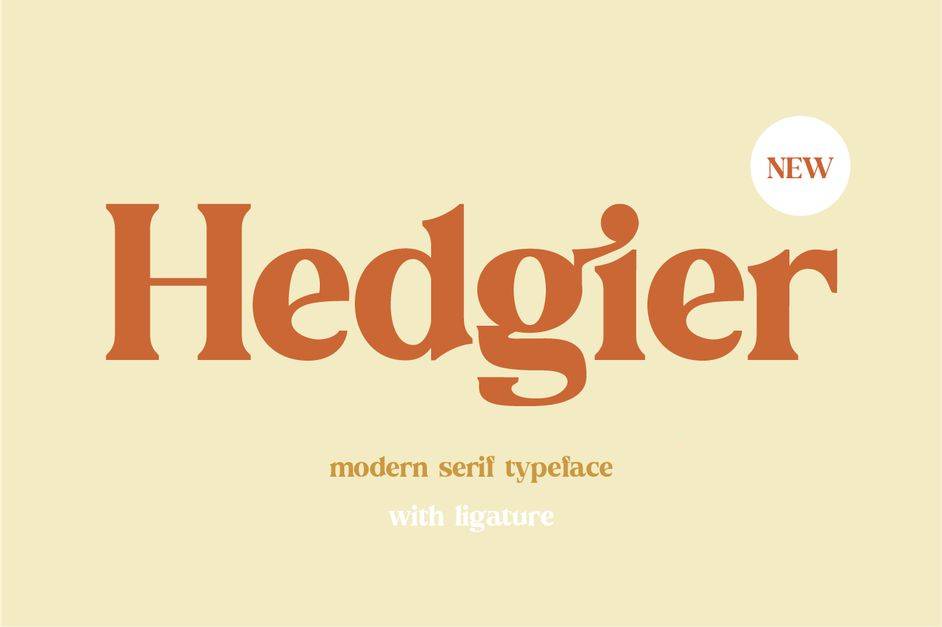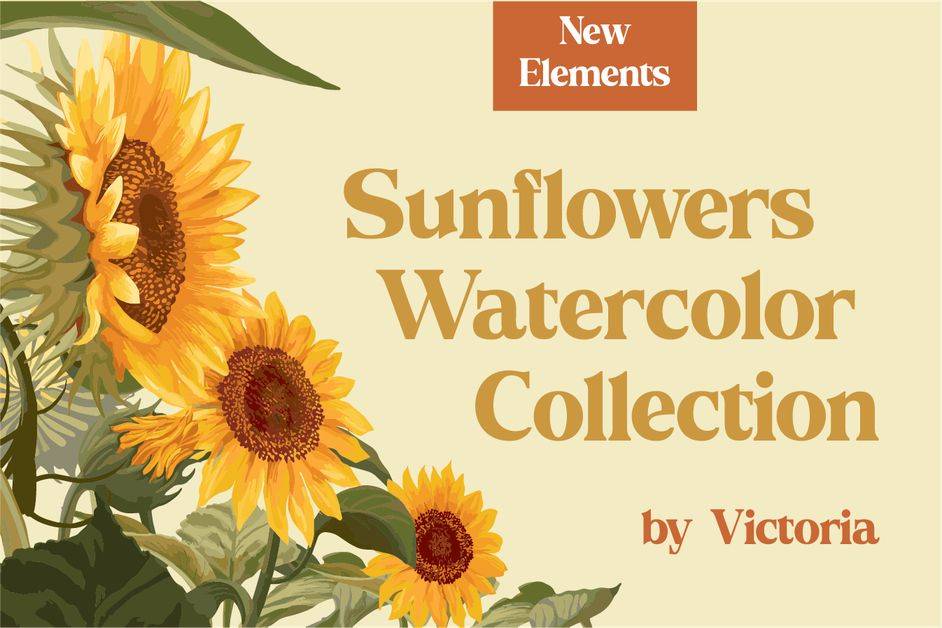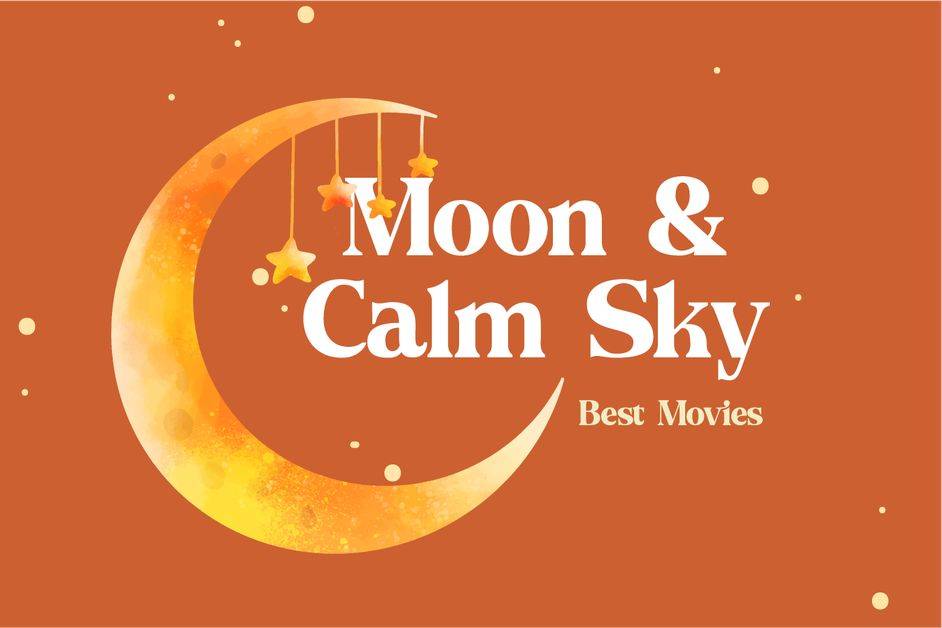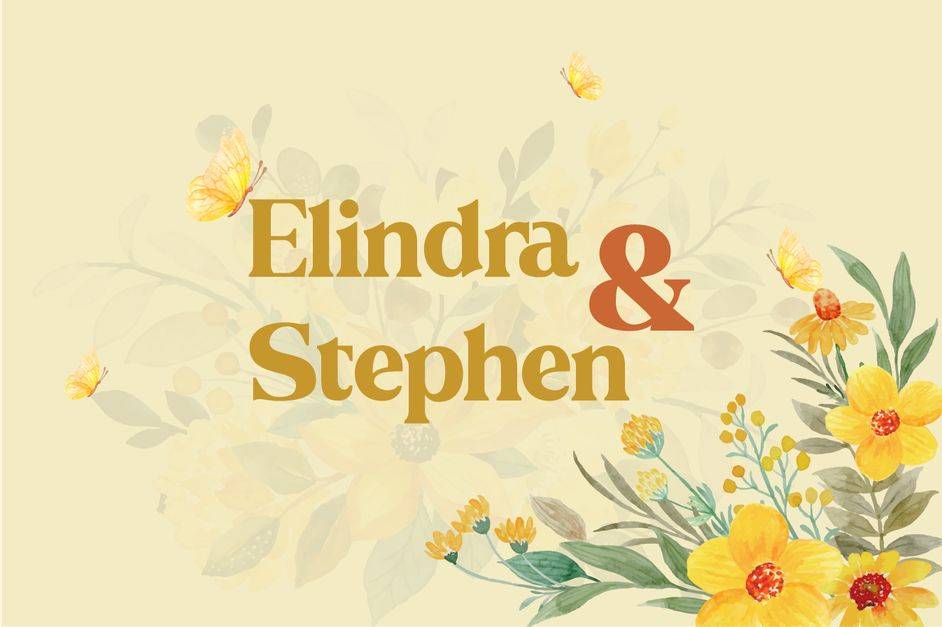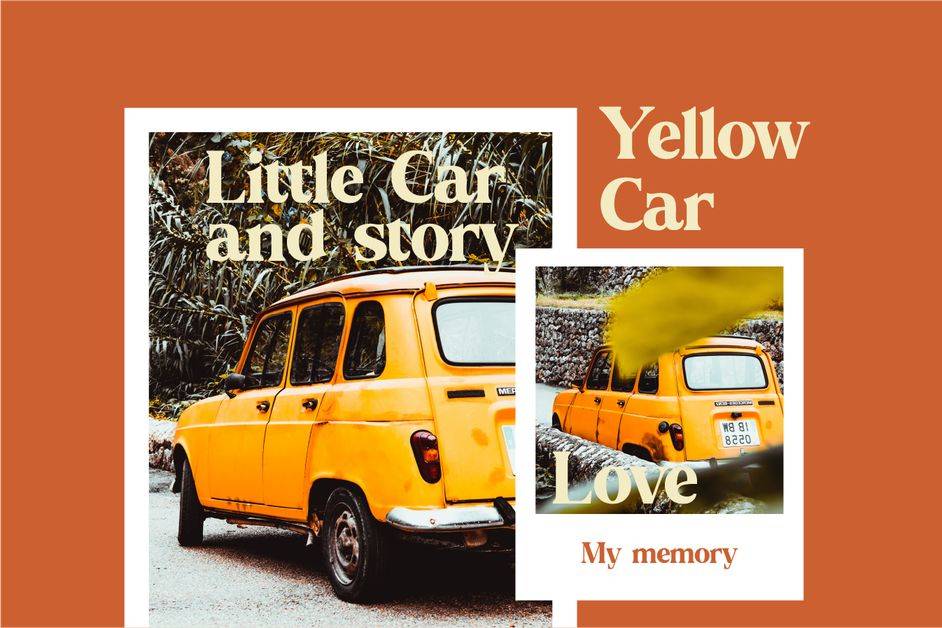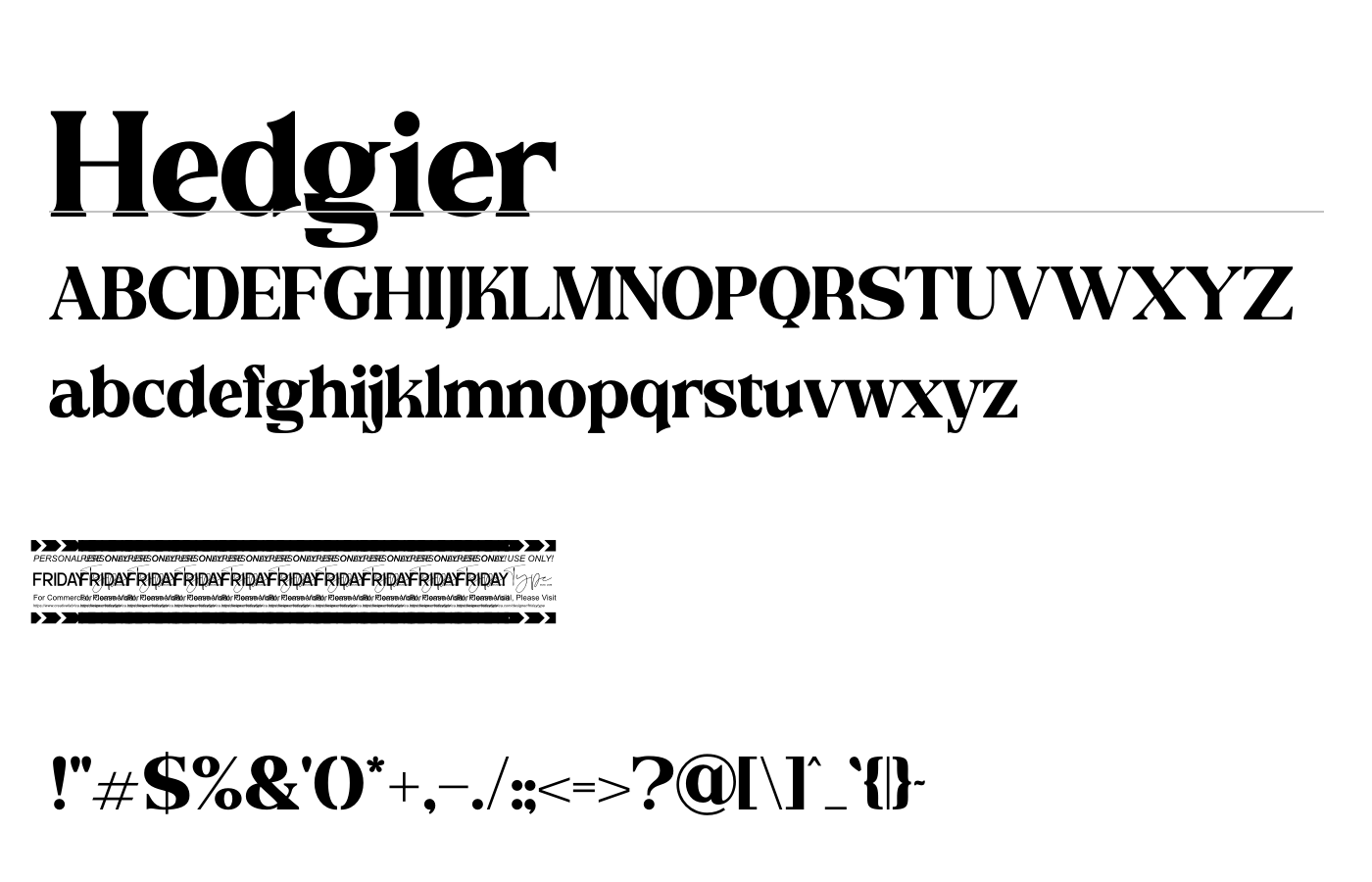
Hedgier is a bold serif font with a strong presence, featuring high contrast between thick and thin strokes and sharp, bracketed serifs that give it an elegant yet assertive character. Its distinctive letterforms, including unique shapes in letters like "g" and "R," make it ideal for impactful headlines, logos, and editorial design where a sophisticated and timeless mood is desired. This font works beautifully for luxury branding and packaging, bringing a classic style with a modern edge to any design.
Hedgier Font
About Hedgier Font
| Font family | Hedgier Font |
| Languages supported | Latin, Greek, Cyrillic, Symbols |
| Release date | 2021-07-25 |
| Designer | Farida Kurniawan |
| Trademark | Fridaytype |